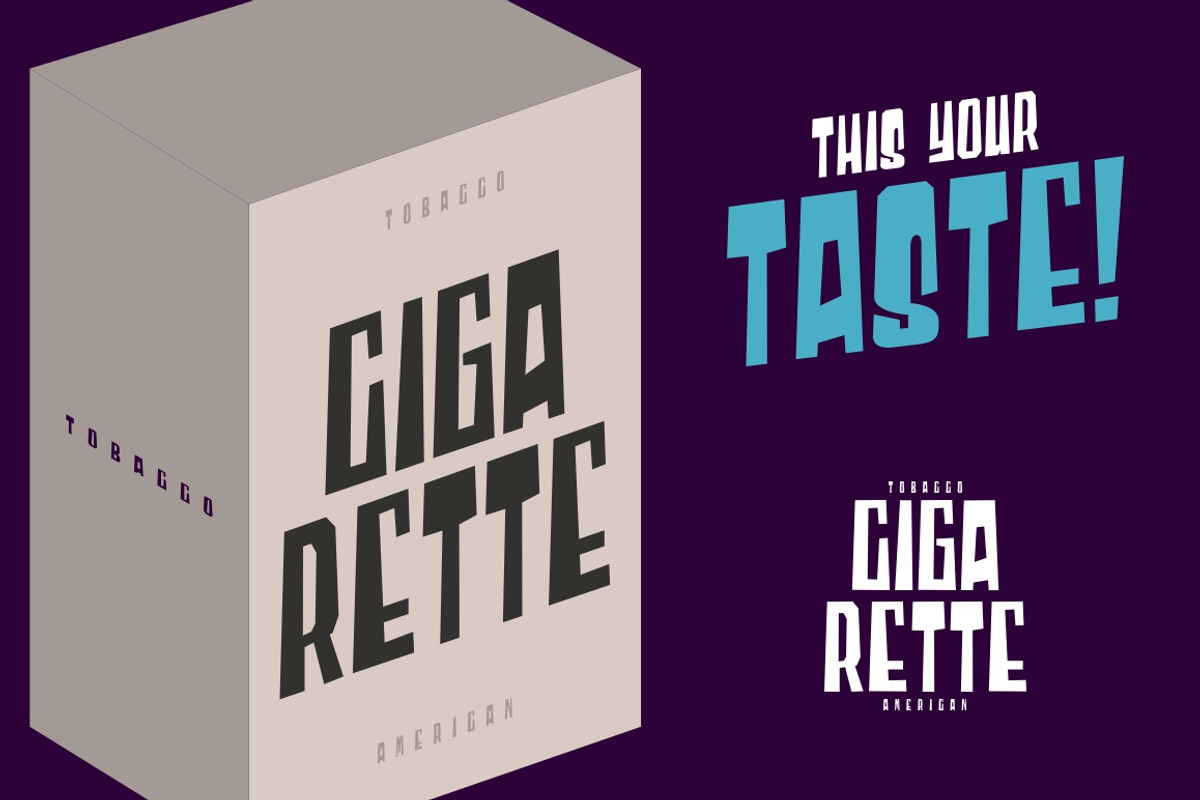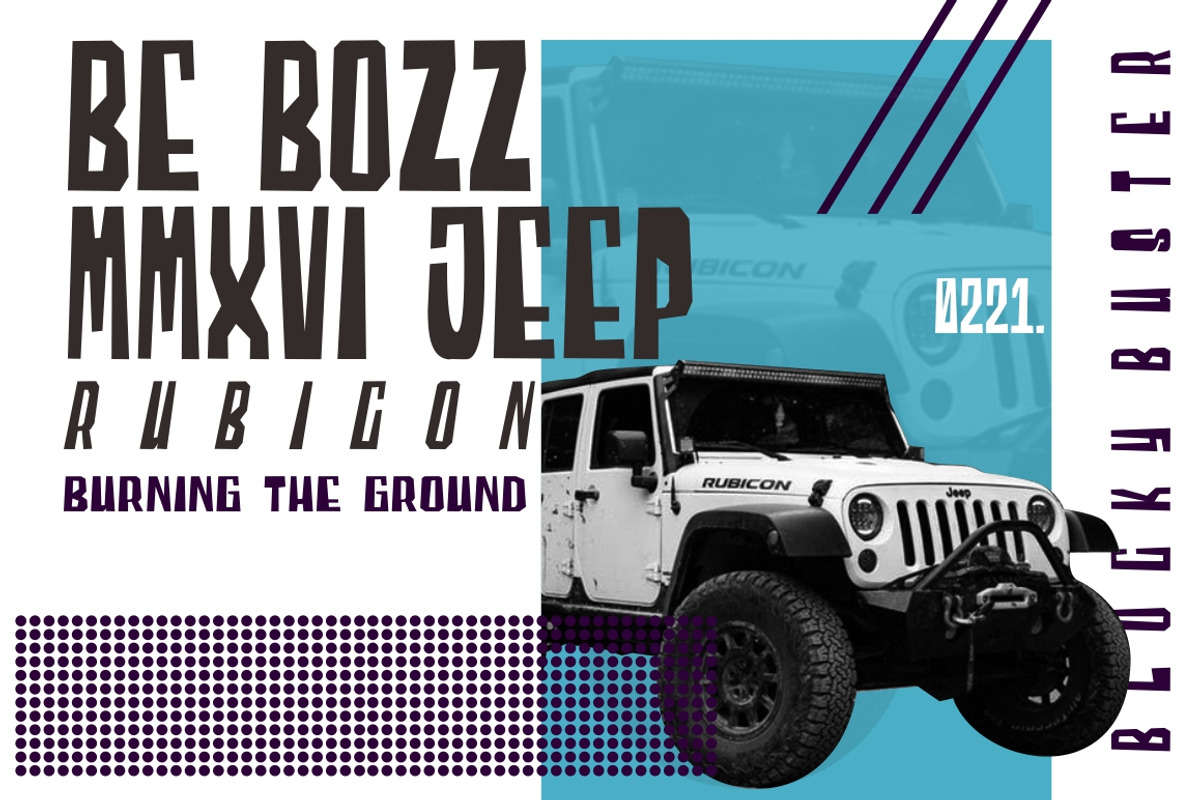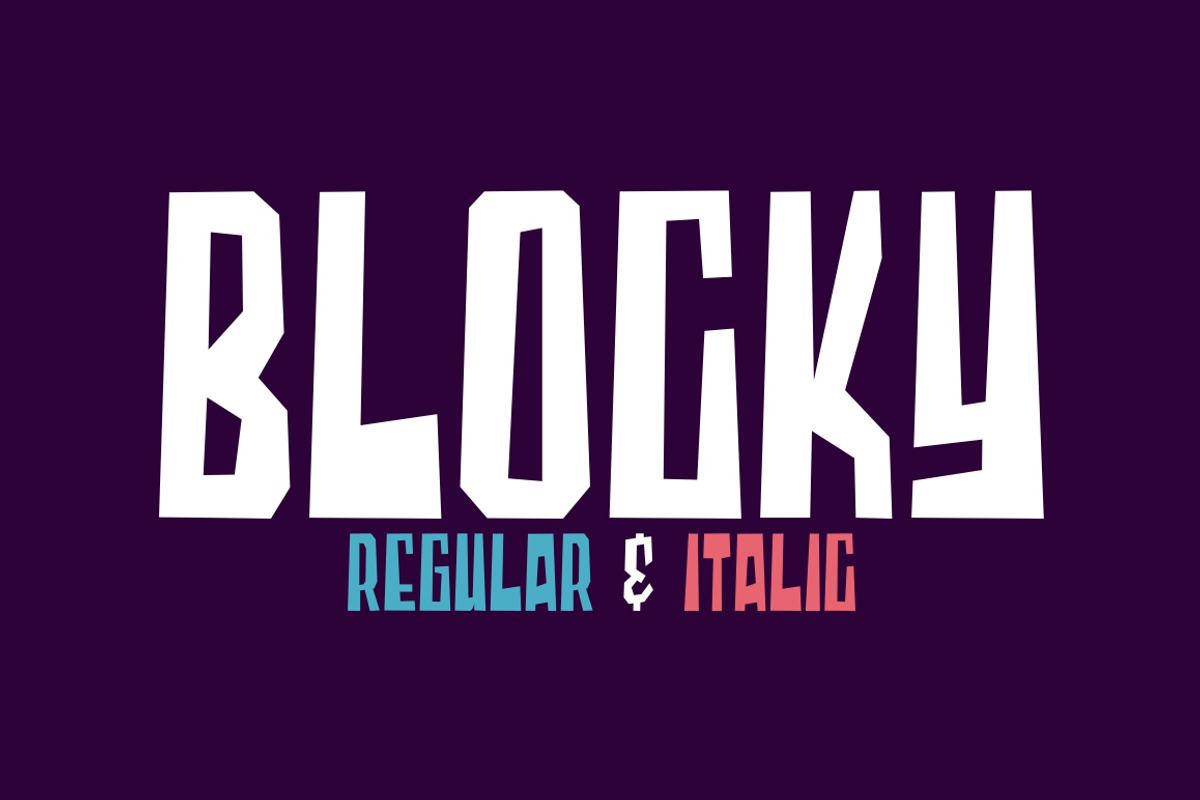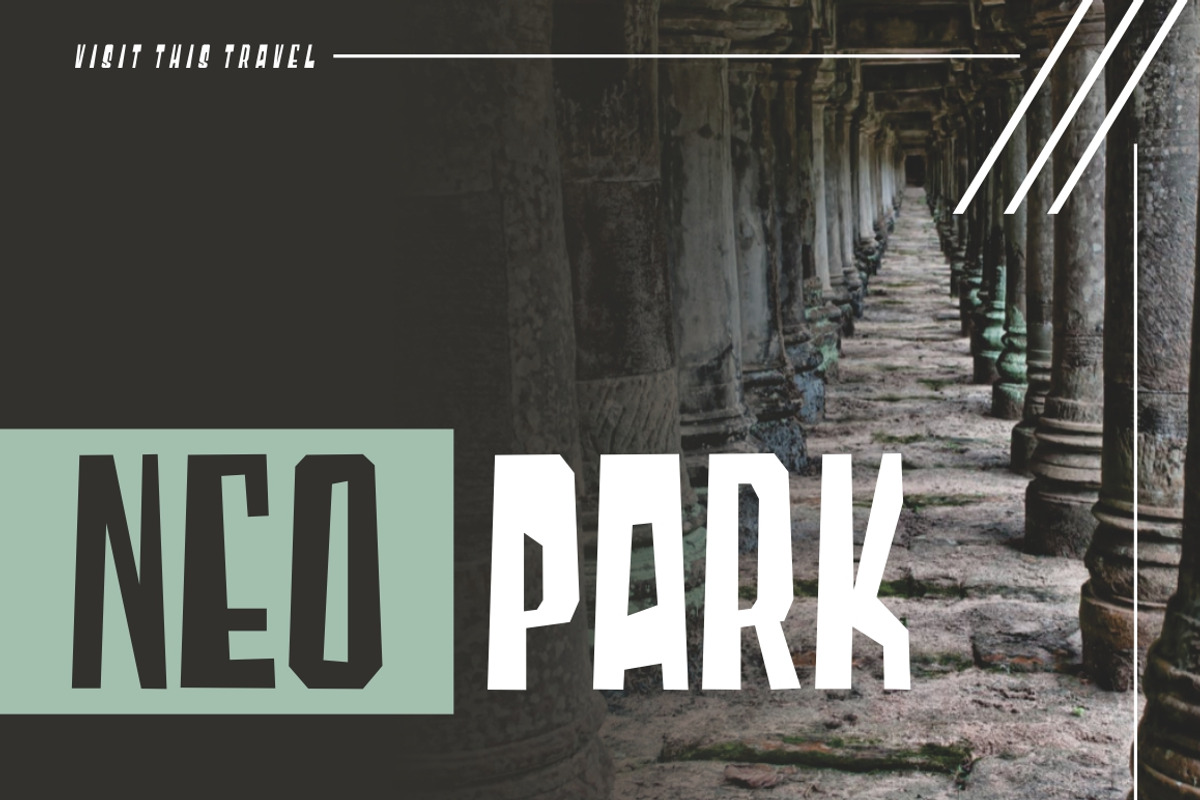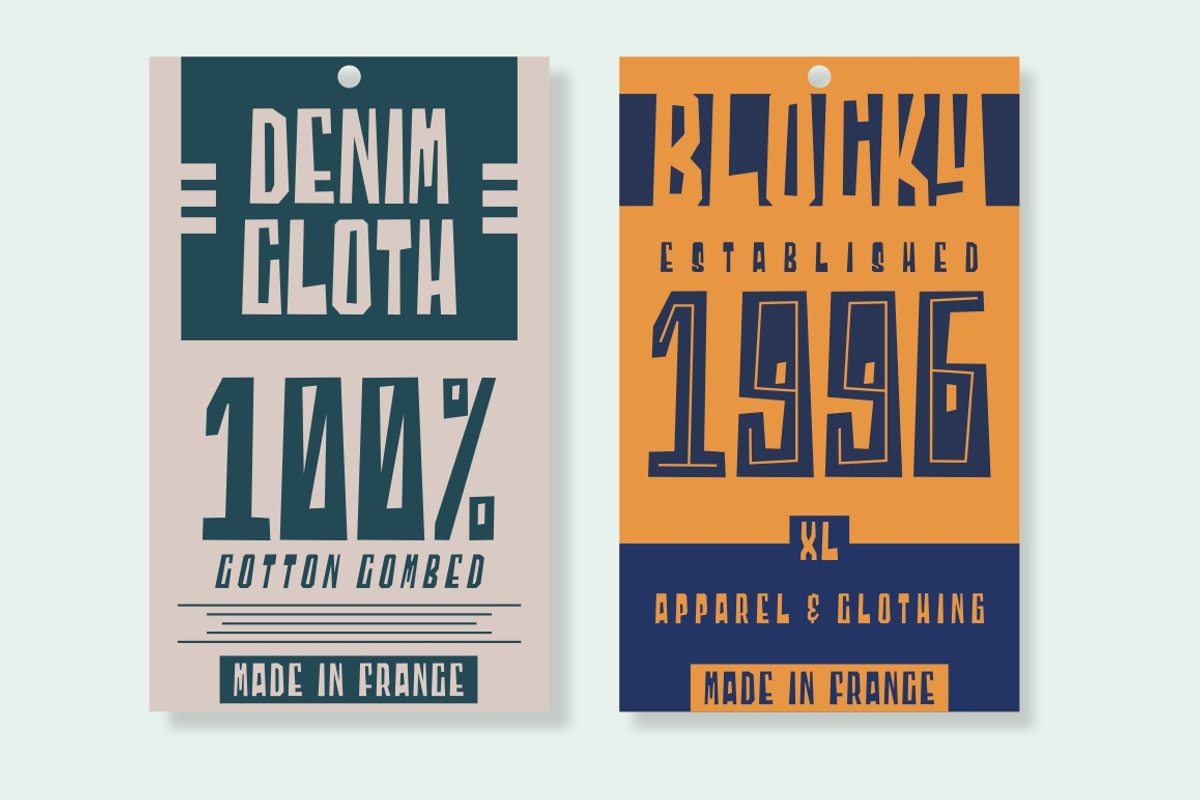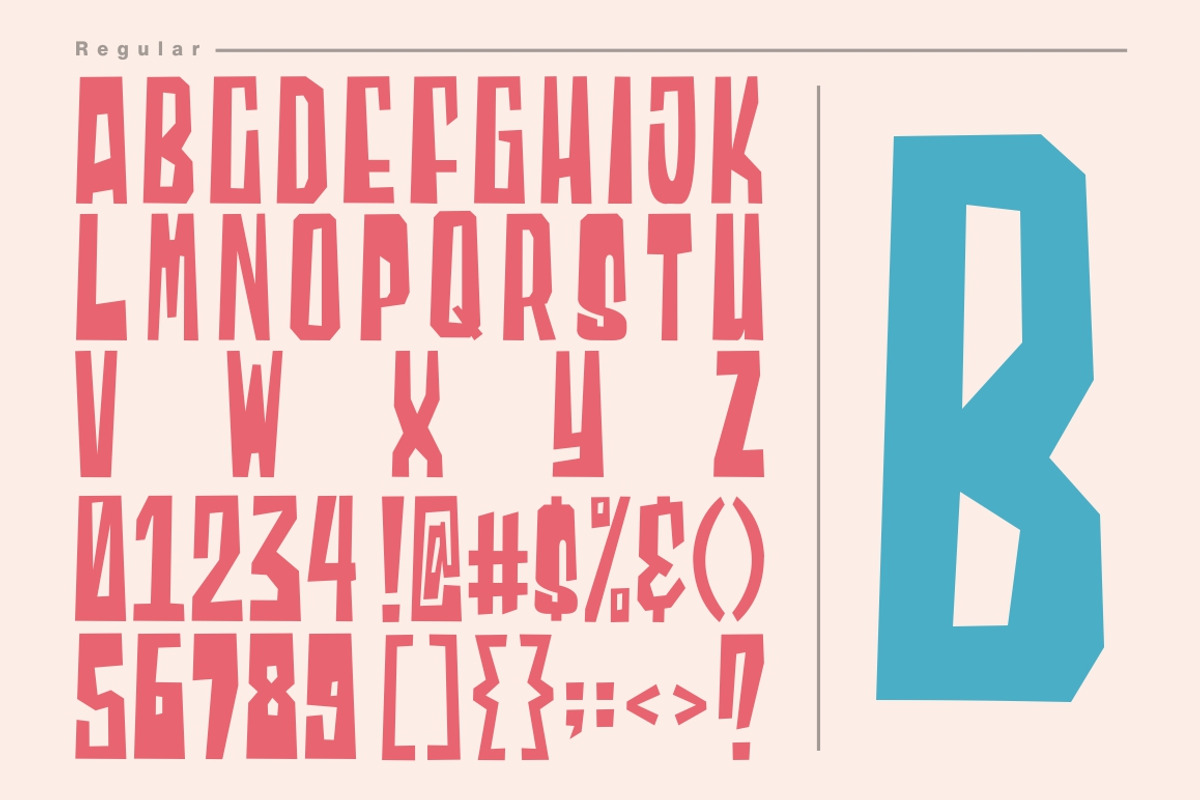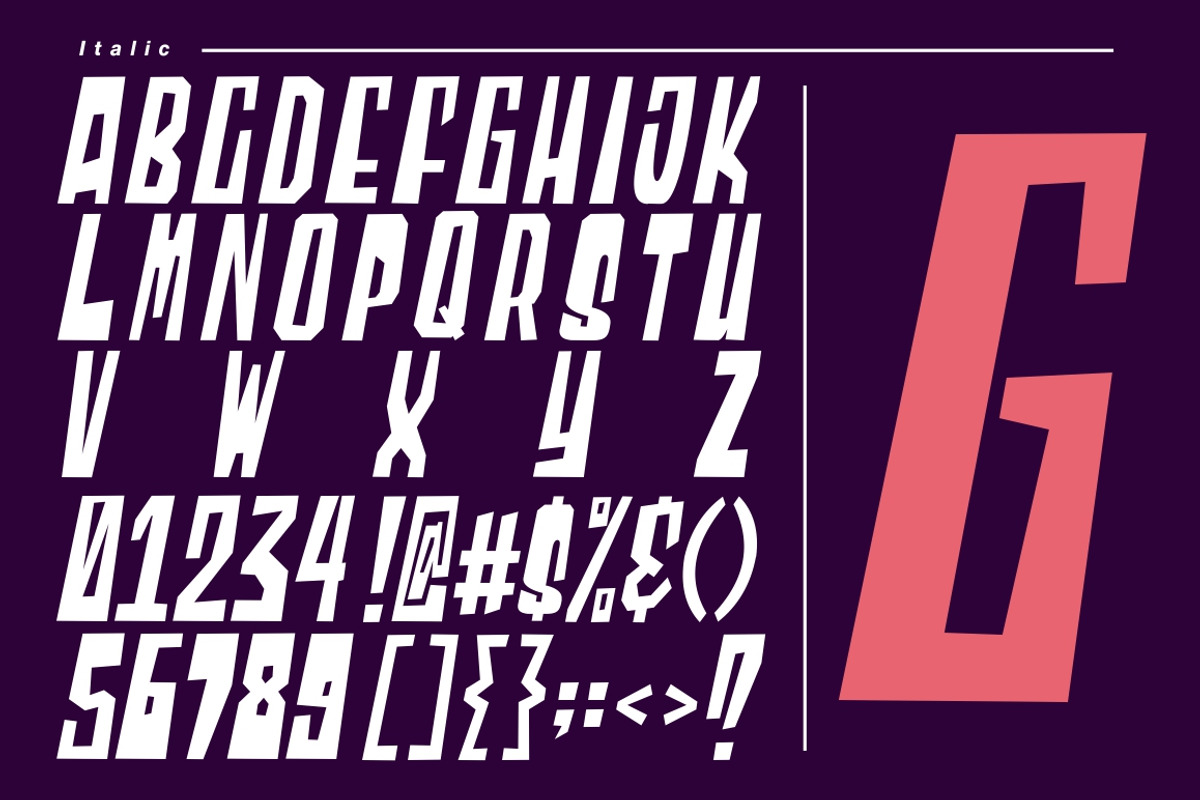
Blocky - 2 Styled Font
Introducing Blocky (Regular & Italic)
Blocky combines attractive curves with a fresh urban edge; delivering a stylish script which is guaranteed to add an eye-catching appeal to your logo designs, brand imagery, quotes, product packaging, merchandise & social media posts